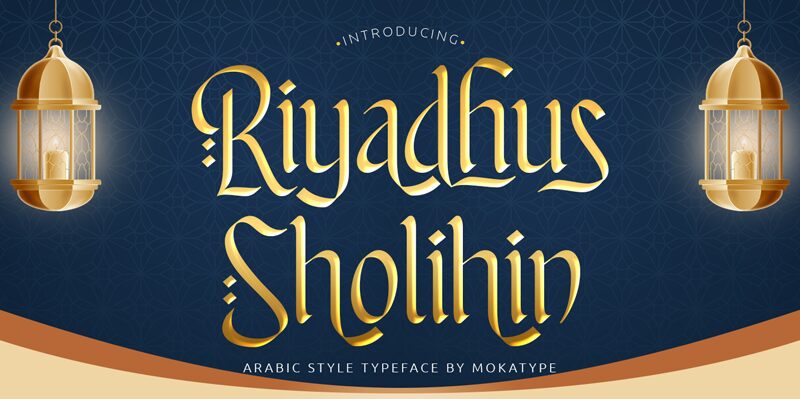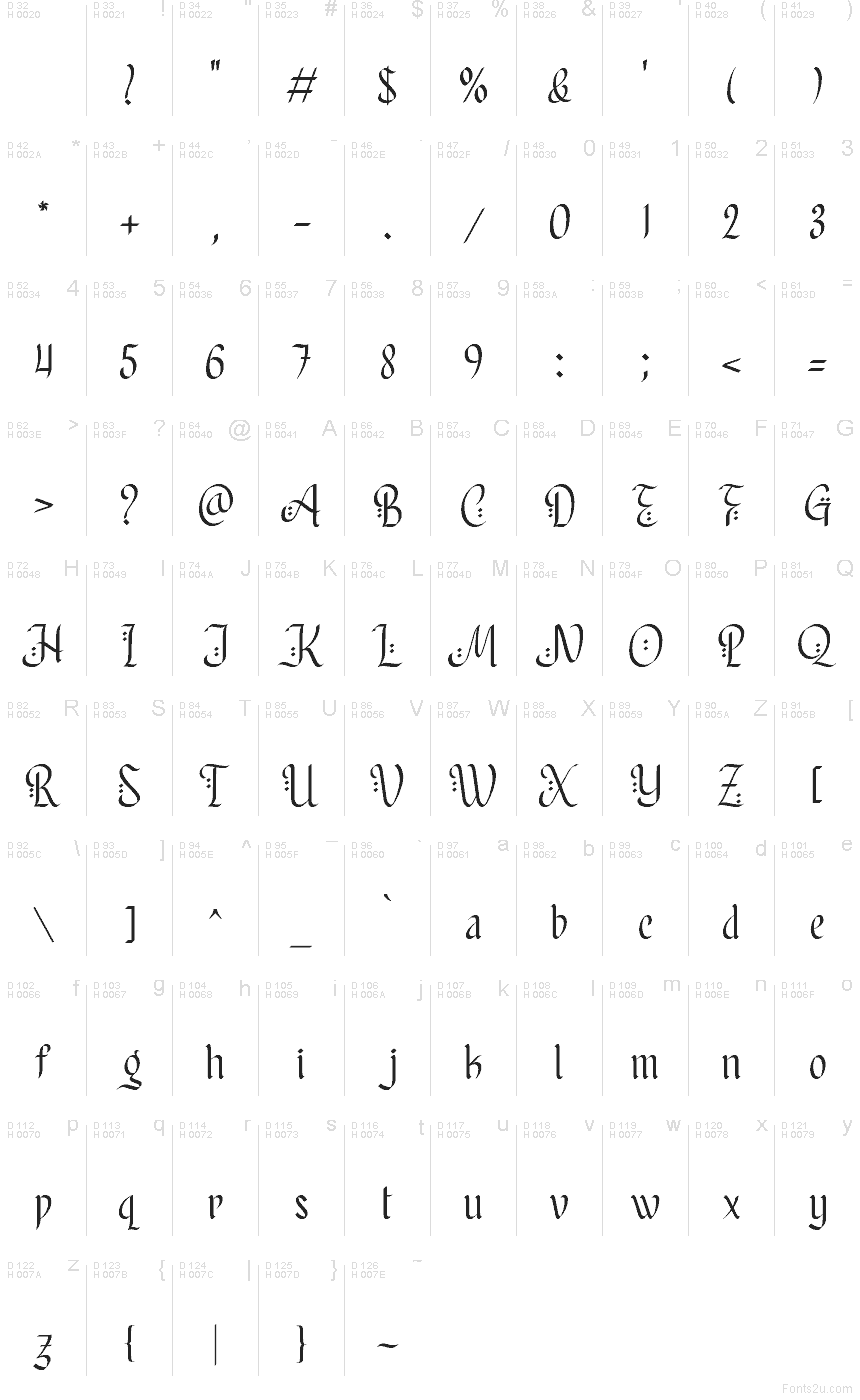
Riyadhus Sholihin
Riyadhus Sholihin font by Moka Type Studio is a free faux-Arabic foreign typeface that brings a lush, calligraphic mood to Latin lettering. Its tall, tapering strokes, teardrop dots, and flowing curves echo traditional Arabic calligraphy while remaining clean and readable in English. The letters feel like they’ve been written with a wet, flexible nib—elegant, slightly dramatic, and full of rhythm on the line.
Using Riyadhus Sholihin, you can instantly give menus, cafe signage, event posters, book covers, Ramadan and Eid graphics, or Middle Eastern–inspired branding a rich, atmospheric accent. This free font shines at larger sizes where the curves and ornamented details can really breathe. For a balanced layout, pair it with a simple geometric sans for body text and let Riyadhus Sholihin handle headlines and logotypes.